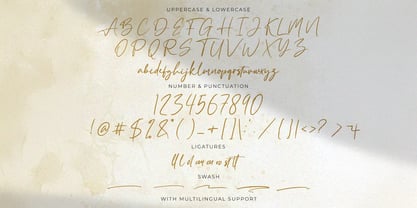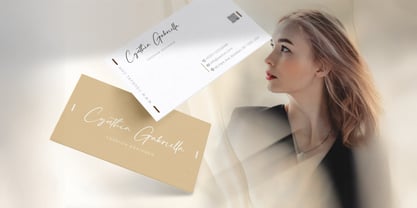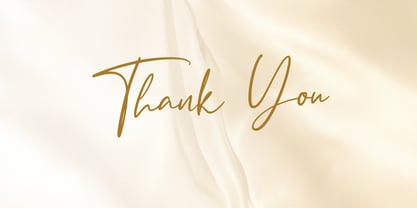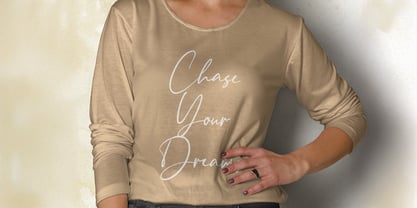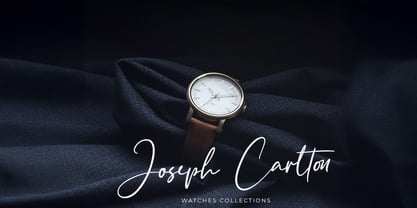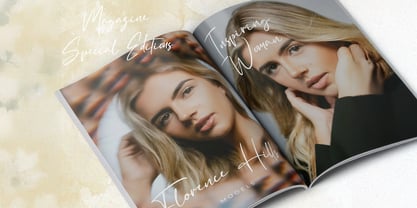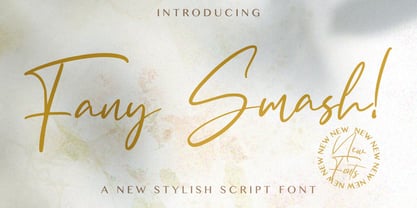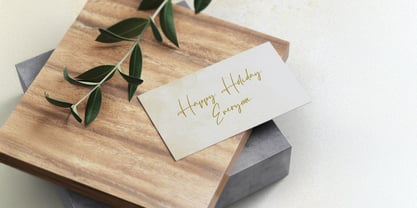
The Fany Smash Font Family was designed by Virgiawan Listanto and published by Stringlabs Creative Studio. Fany Smash contains 1 styles. More about this family
Fany Smash is a bold and playful handwritten font with a lively attitude and a touch of rebellious charm. Its energetic strokes and imperfect lines give it a raw, authentic vibe perfect for designs that want to stand out with personality and flair.
Designers: Virgiawan Listanto
Foundry: Stringlabs Creative Studio
Fany Smash